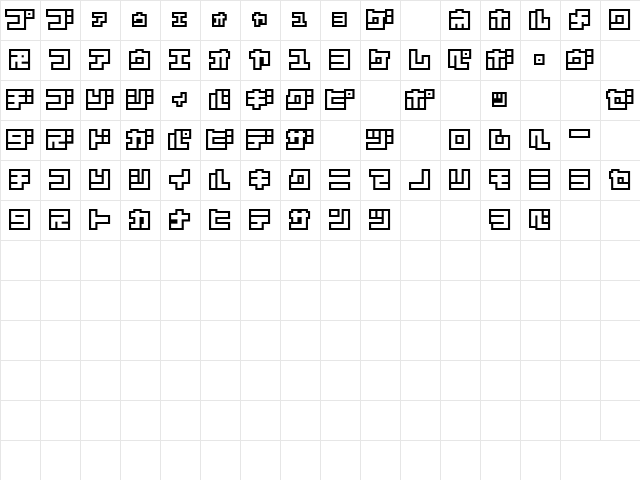
D3 Superstructurism Kat_Out Regular
Design Context for D3 Superstructurism Kat_Out Typeface
D3 Superstructurism Kat_Out is a composed and adaptable typeface that performs quietly and consistently across a wide range of design contexts.